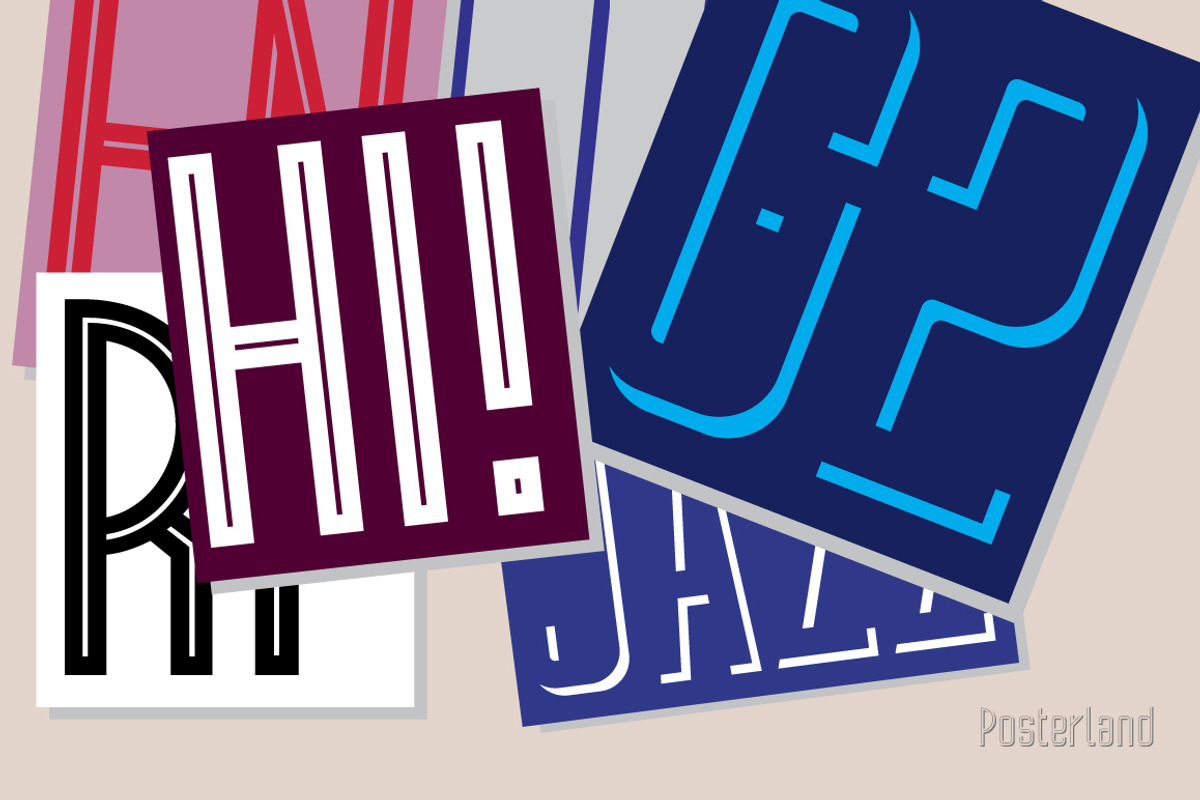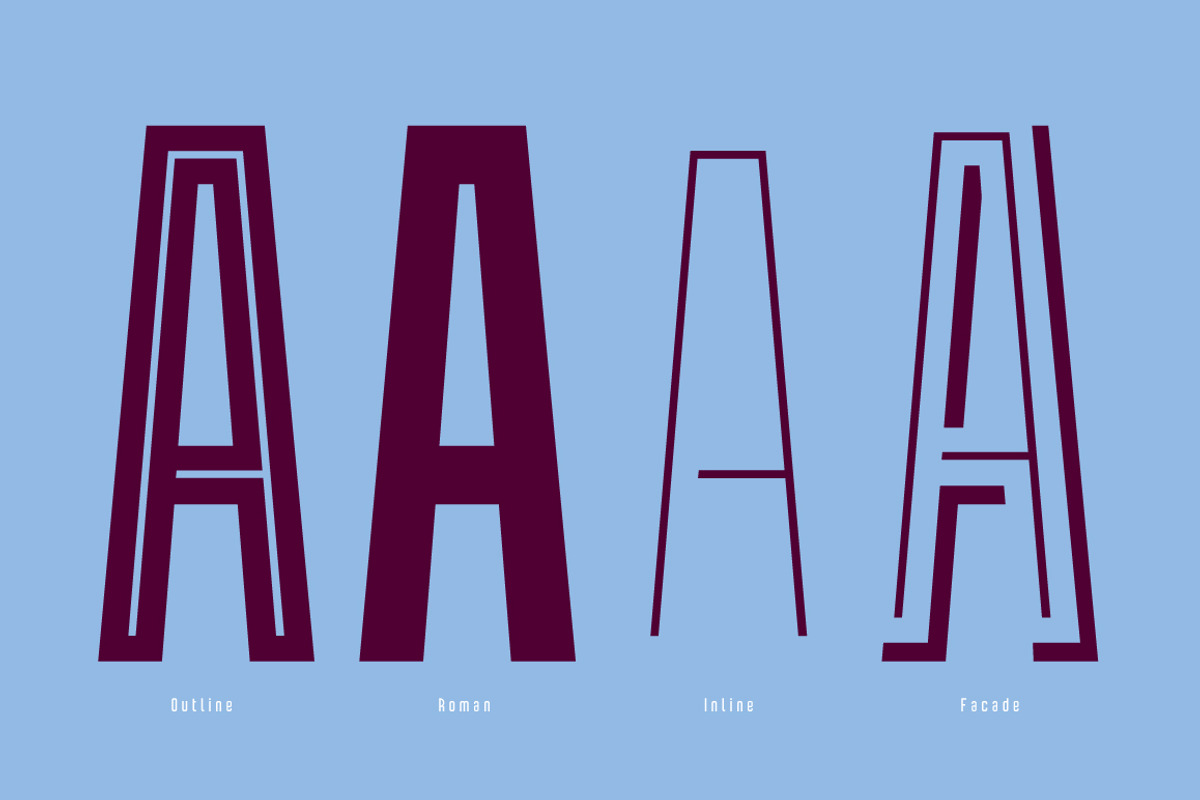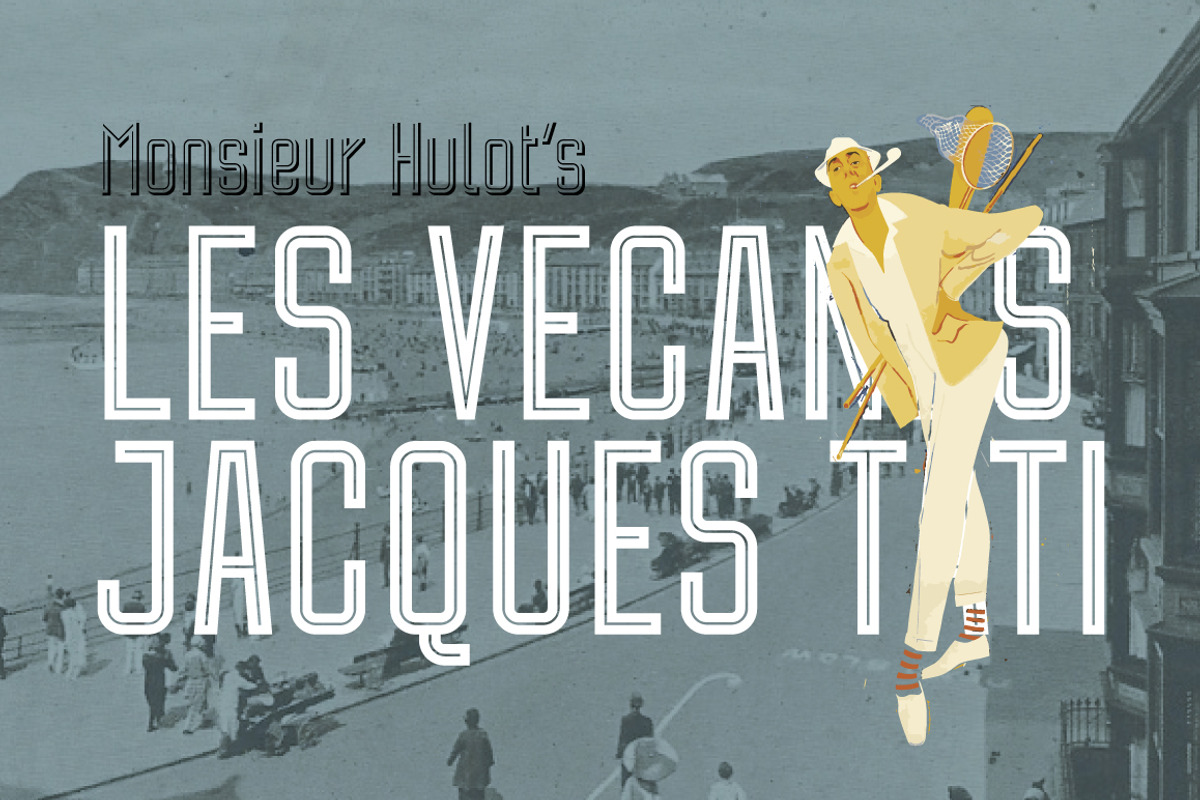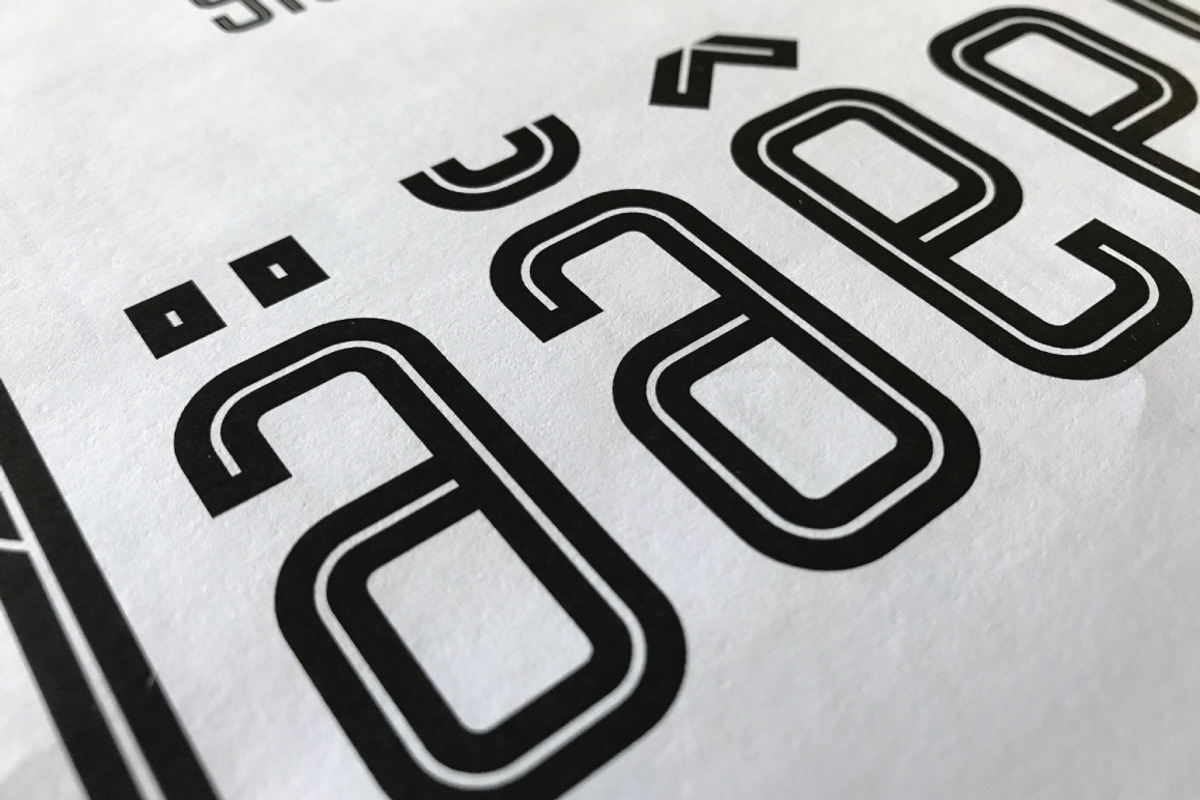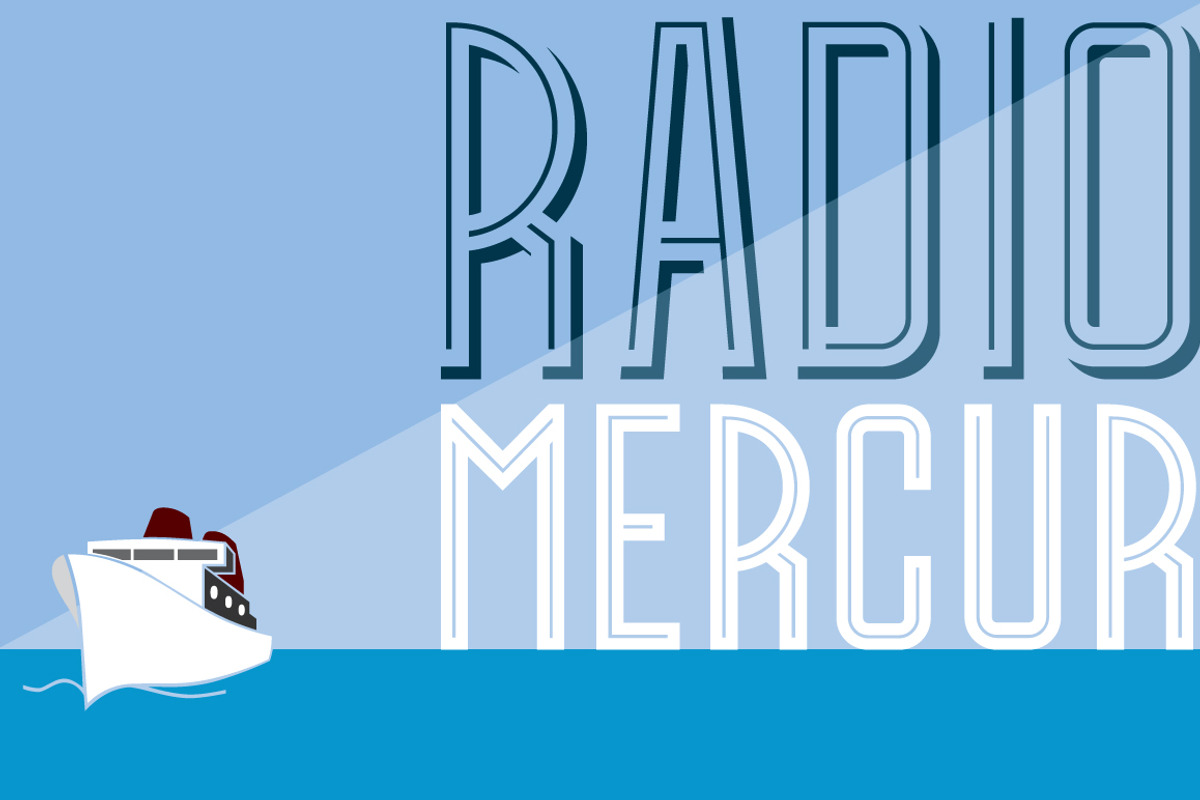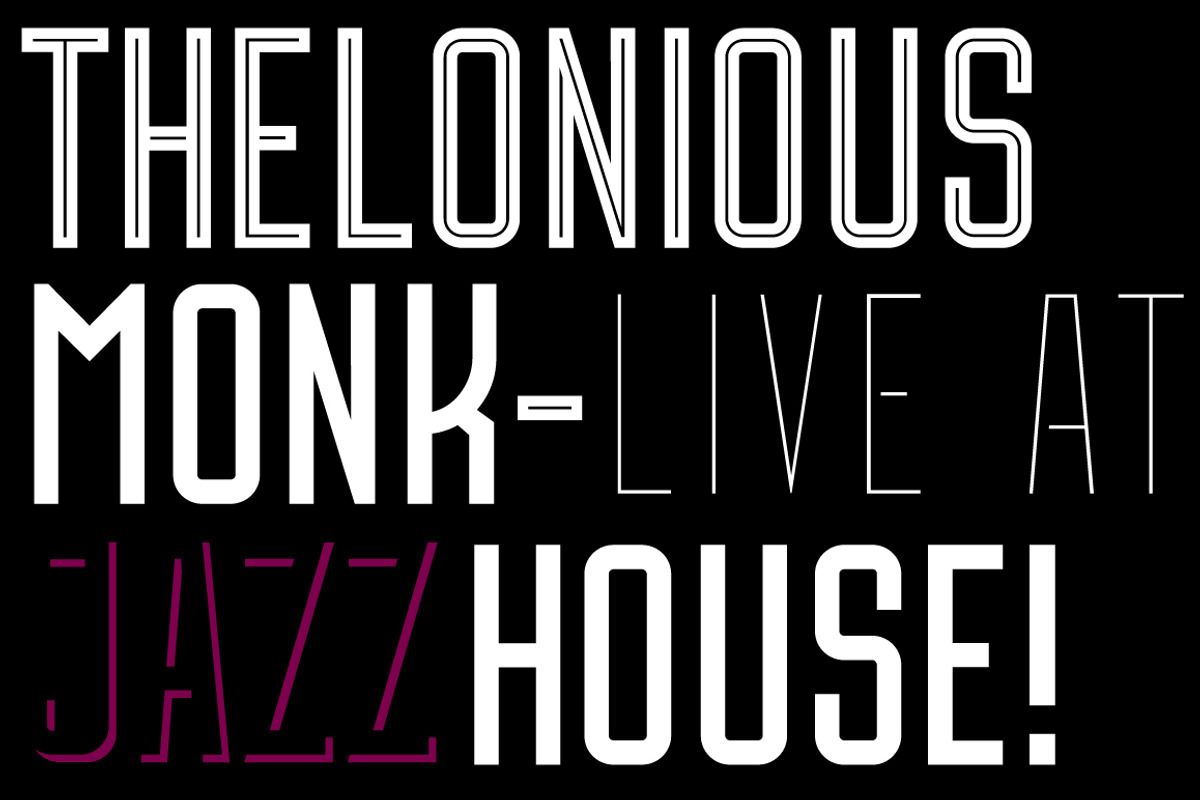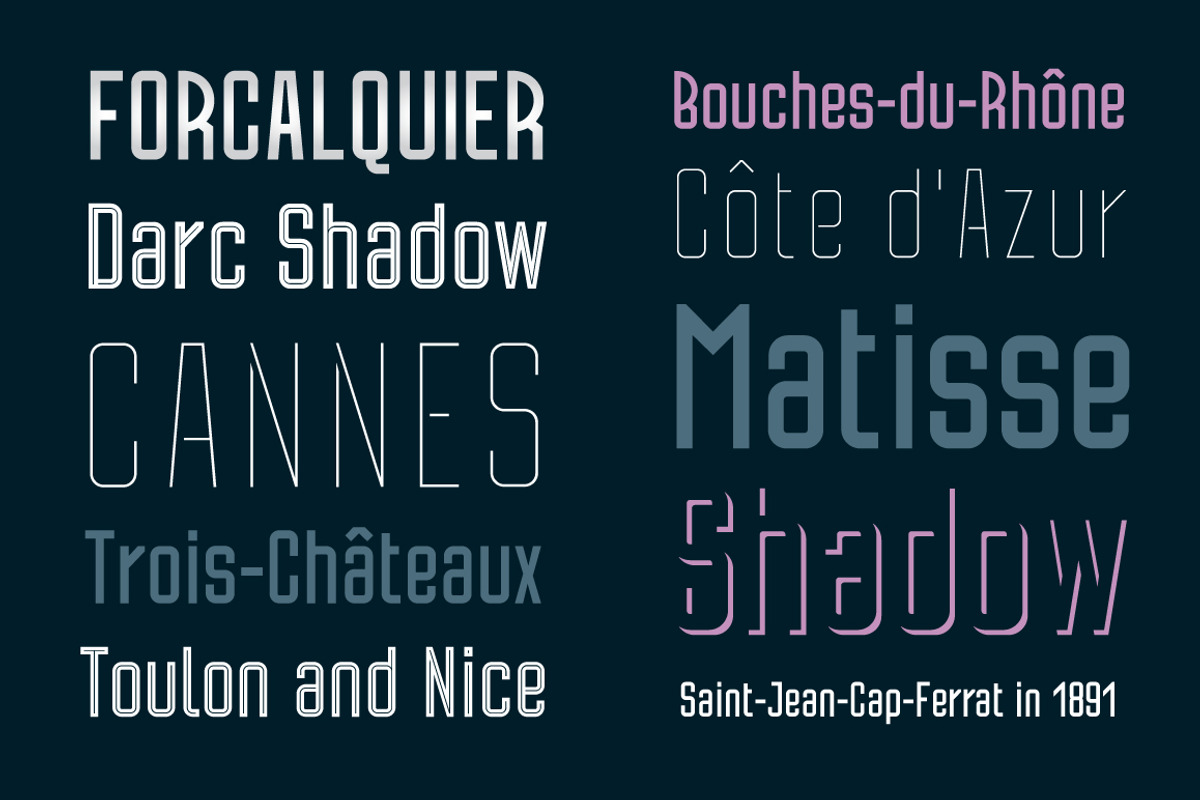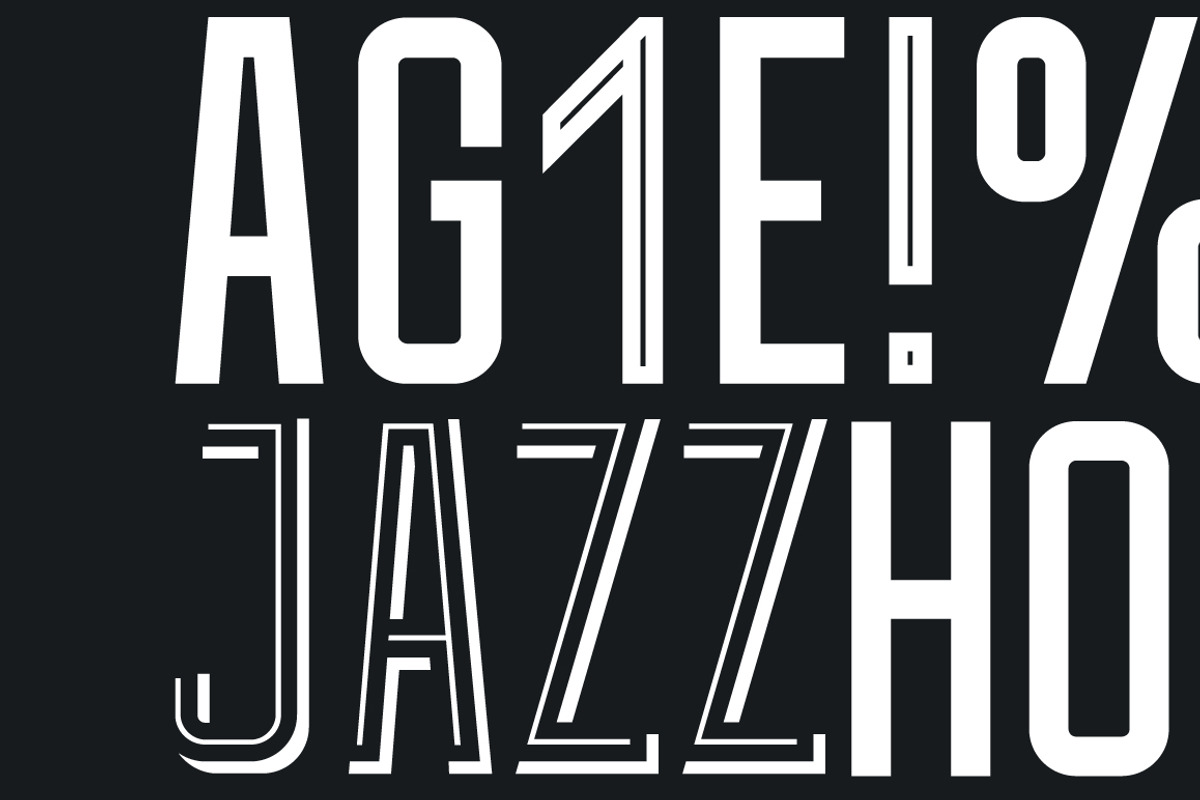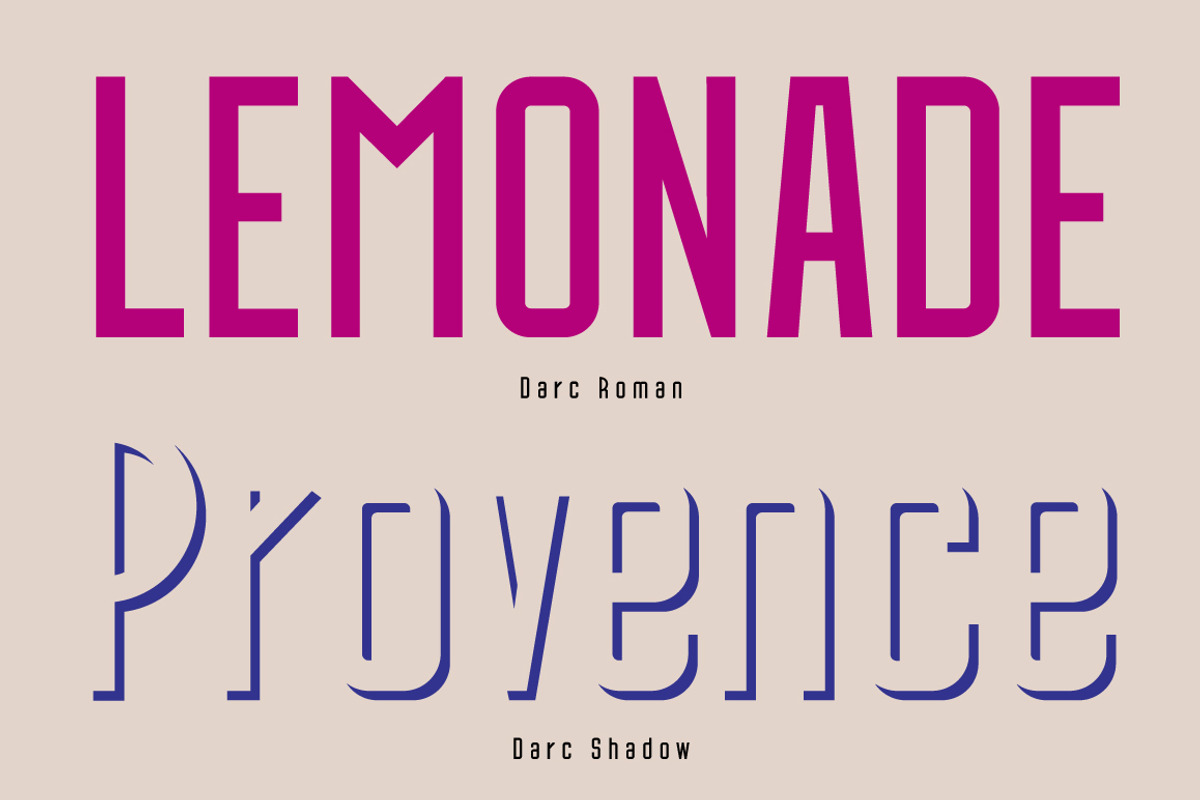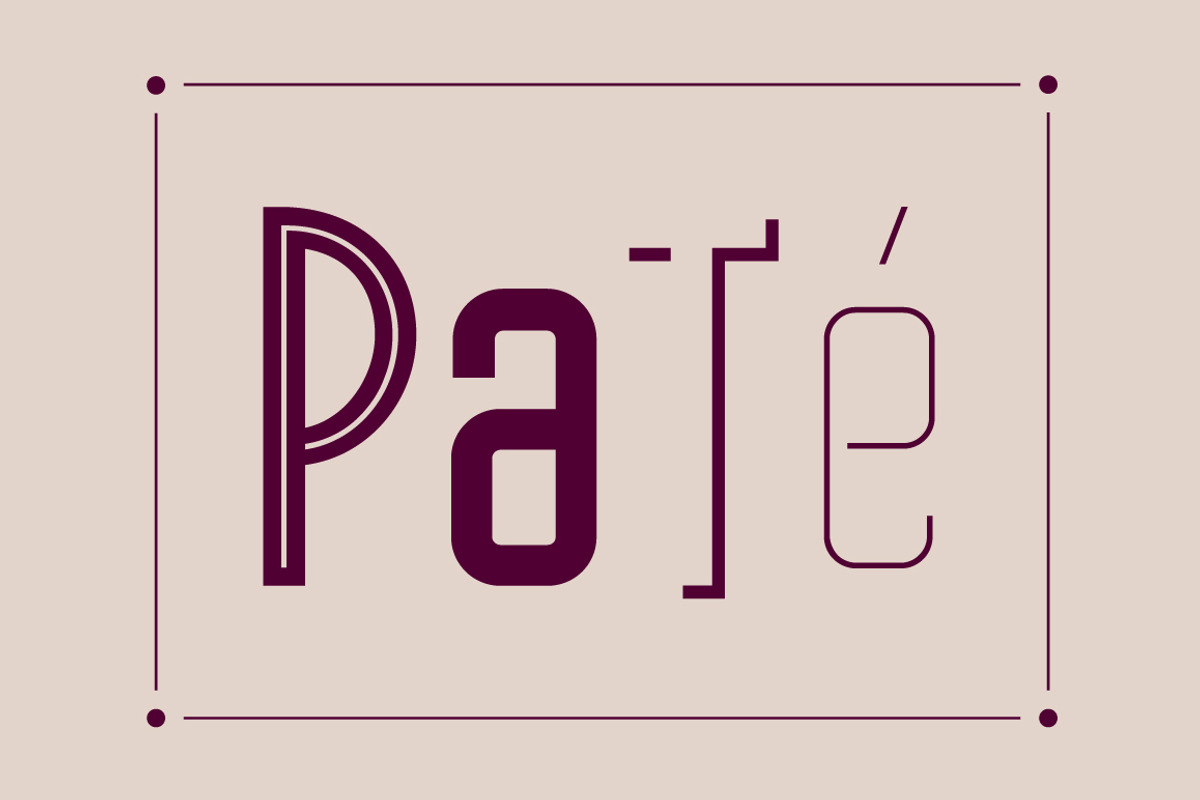
Darc
Darc is a retro French inspired writing, consisting of 5 Weights: Shadow, Facade, Outline, Roman and Inline. It is both in OTF and TTF format.
The idea came from a trip in Nice, where I went round and looked at the old ones street signs, cafe facades, cinemas and etiquette design. It became an archive of pictures I took along, drew some drafts, and it became an idea to create a varied font with different styles with a modern expression. But at the same time it is a very retro-embossed style, which will be a tribute to the old fashion style. The same is also the name "Darc", inspired by the word "d'arc".